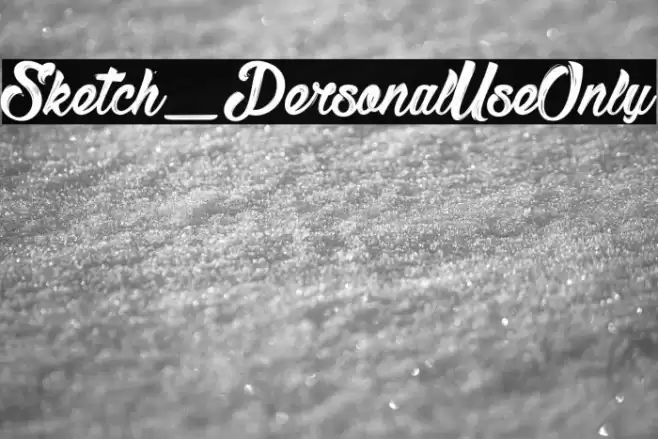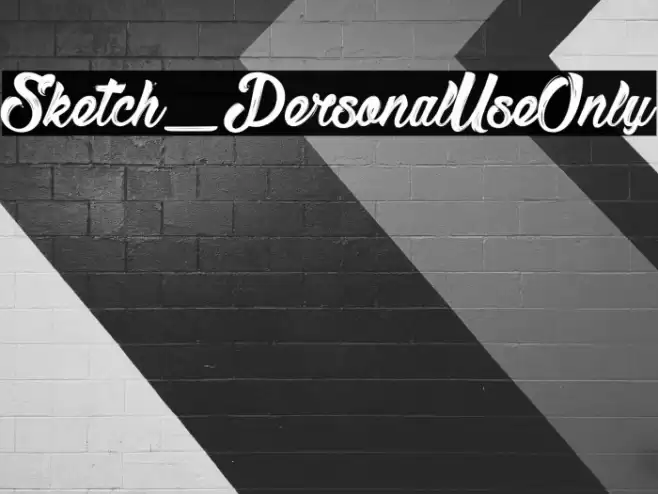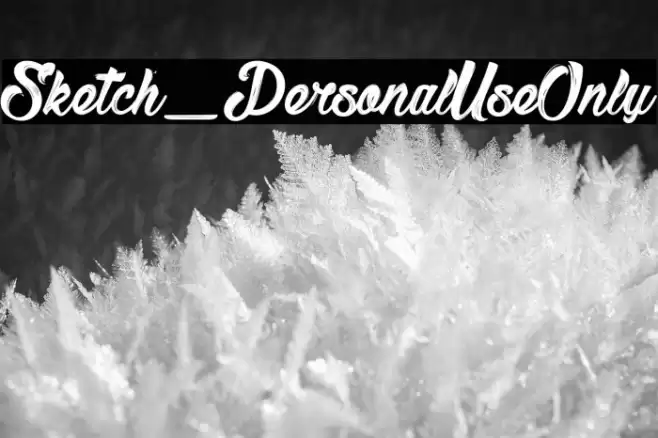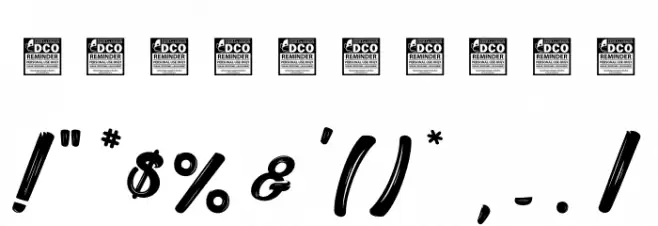
Sketch_PersonalUseOnly Font
Sketch_PersonalUseOnly Description
This font features a dynamic and expressive script style, characterized by bold, sweeping strokes that mimic the fluidity of brush calligraphy. The uppercase letters exhibit a dramatic flair with exaggerated curves and loops, while the lowercase letters maintain a consistent flow, enhancing readability. The numbers and special characters are crafted with the same attention to detail, ensuring a cohesive look across all glyphs. The font's energetic style makes it ideal for projects that require a touch of elegance and creativity.
A bold, brush-style script font with dynamic strokes and elegant curves from Regular fonts.